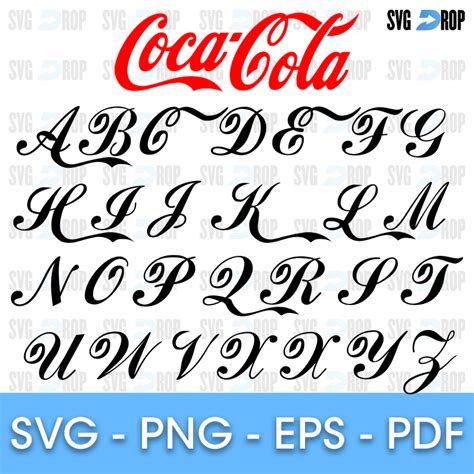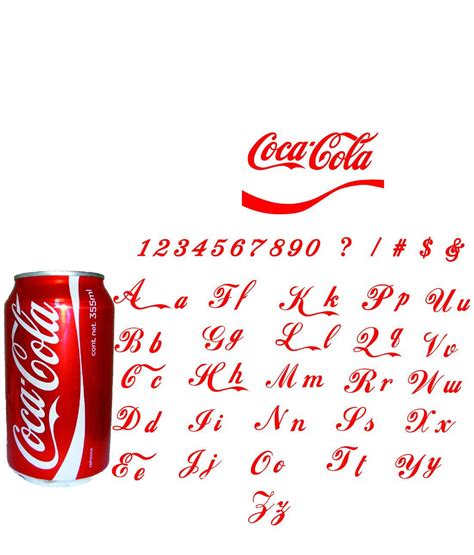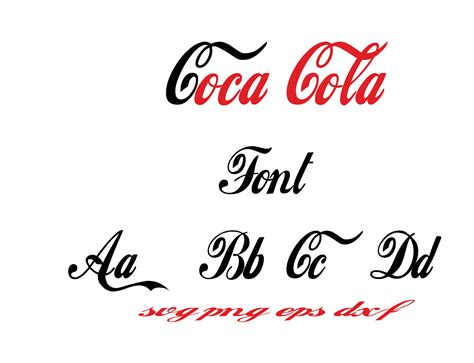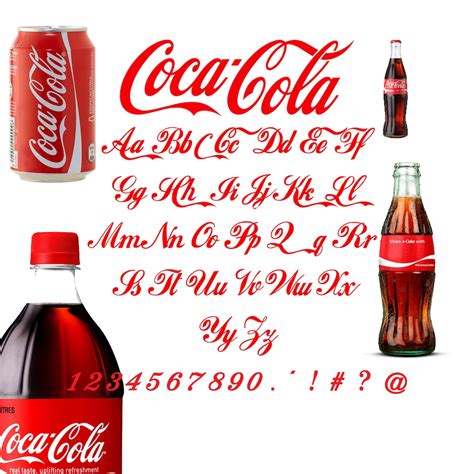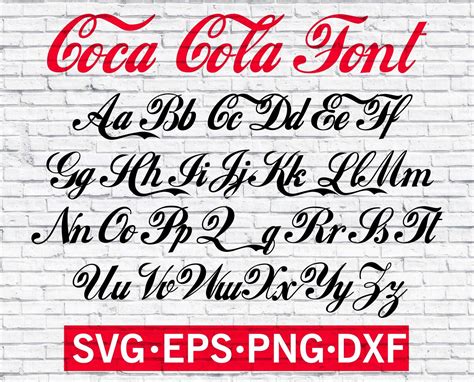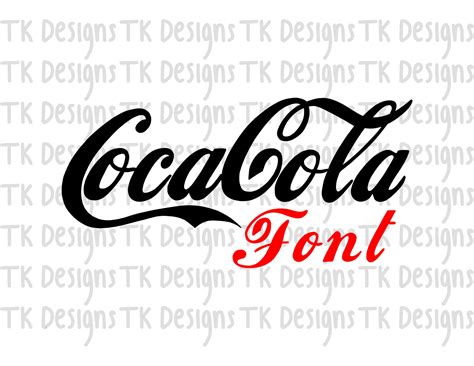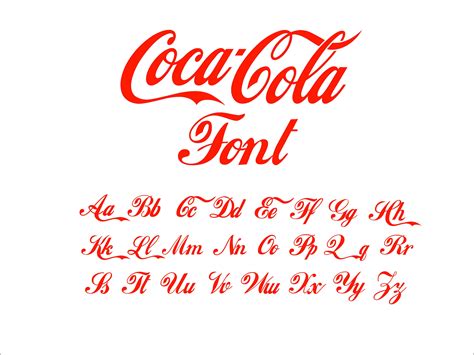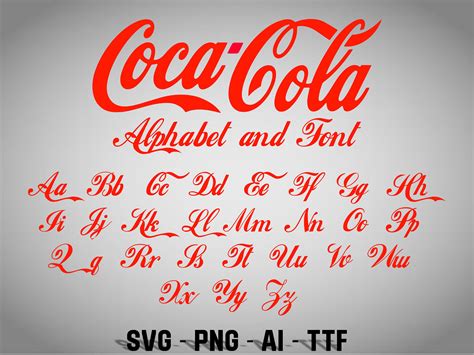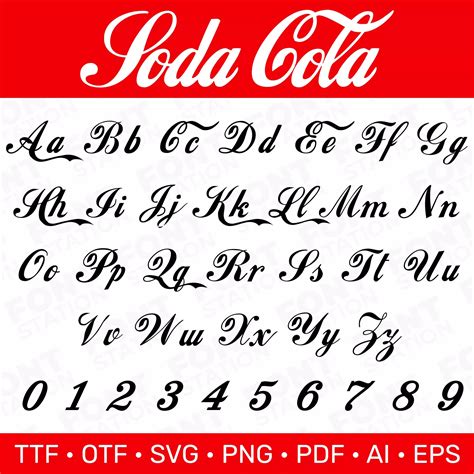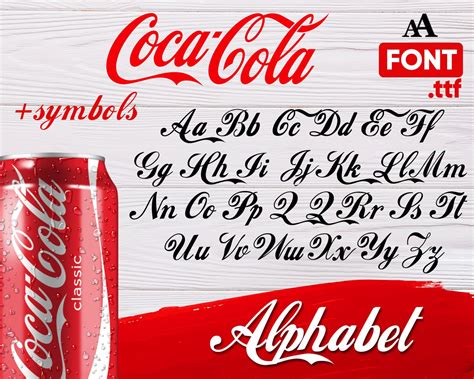
Typography plays a crucial role in branding, and one of the most iconic examples is the Coca Cola font. The distinctive script has become synonymous with the brand, evoking nostalgia and recognition worldwide. Understanding the history, design, and impact of the Coca Cola font offers insights into the power of typography in marketing and branding.
The History of the Coca Cola Font
The Coca Cola font, often referred to as the "Coca-Cola Script" or "Spencerian Script," has a rich history that dates back to the late 19th century. The script was designed by Frank Mason Robinson, the bookkeeper of John Pemberton, the inventor of Coca-Cola. Robinson created the logo in 1885, and it has undergone several modifications over the years to keep up with modern design trends while retaining its classic appeal.
The original Coca Cola font was inspired by the Spencerian Script, a popular handwriting style in the United States during the 19th century. This script was known for its fluid, elegant, and highly legible characters, making it an ideal choice for a brand that aimed to convey a sense of sophistication and quality.
Evolution of the Coca Cola Font
Over the decades, the Coca Cola font has evolved to adapt to changing design aesthetics and technological advancements. Here are some key milestones in its evolution:
- 1885-1941: The original script remained largely unchanged, with minor adjustments to improve legibility and consistency.
- 1941-1969: The font was slightly modified to make it more streamlined and modern, reflecting the design trends of the mid-20th century.
- 1969-Present: The current version of the Coca Cola font was introduced in 1969. This version features a more rounded and dynamic design, which has become the iconic look we recognize today.
The Design Elements of the Coca Cola Font
The Coca Cola font is characterized by several distinctive design elements that contribute to its unique and recognizable appearance. Some of these elements include:
- Fluid and Dynamic Lines: The script features smooth, flowing lines that create a sense of movement and energy.
- Elegant Curves: The letters are designed with elegant curves that add a touch of sophistication and grace.
- Consistent Thickness: The strokes of the letters maintain a consistent thickness, which enhances readability and visual appeal.
- Distinctive Letterforms: Certain letters, such as the "C" and the "O," have unique shapes that are instantly recognizable.
These design elements work together to create a font that is not only visually appealing but also highly effective in conveying the brand's message and values.
The Impact of the Coca Cola Font on Branding
The Coca Cola font has had a profound impact on branding, serving as a prime example of how typography can enhance a brand's identity and recognition. Here are some ways in which the Coca Cola font has influenced branding:
- Brand Recognition: The distinctive script is instantly recognizable, making it one of the most iconic logos in the world. This recognition helps to reinforce the brand's presence in the minds of consumers.
- Emotional Connection: The font evokes a sense of nostalgia and familiarity, creating an emotional connection with consumers who have grown up with the brand.
- Consistency: The consistent use of the Coca Cola font across various marketing materials and products helps to maintain a cohesive brand image.
- Versatility: The font's adaptability allows it to be used in different contexts, from packaging and advertising to digital media and merchandise.
The Coca Cola font's impact on branding highlights the importance of typography in creating a strong and memorable brand identity.
Using the Coca Cola Font in Design Projects
While the Coca Cola font is a trademarked design and cannot be used commercially without permission, understanding its design principles can inspire similar typographic styles for your own projects. Here are some tips for incorporating Coca Cola font-inspired designs into your work:
- Study the Original: Analyze the design elements of the Coca Cola font to understand what makes it unique and effective.
- Experiment with Script Fonts: Explore different script fonts that share similar characteristics, such as fluid lines and elegant curves.
- Customize Your Design: Modify the font to suit your specific needs, whether it's for a logo, packaging, or advertising campaign.
- Maintain Consistency: Ensure that your typographic choices are consistent across all branding materials to create a cohesive look.
By following these tips, you can create designs that capture the essence of the Coca Cola font while maintaining originality and compliance with trademark laws.